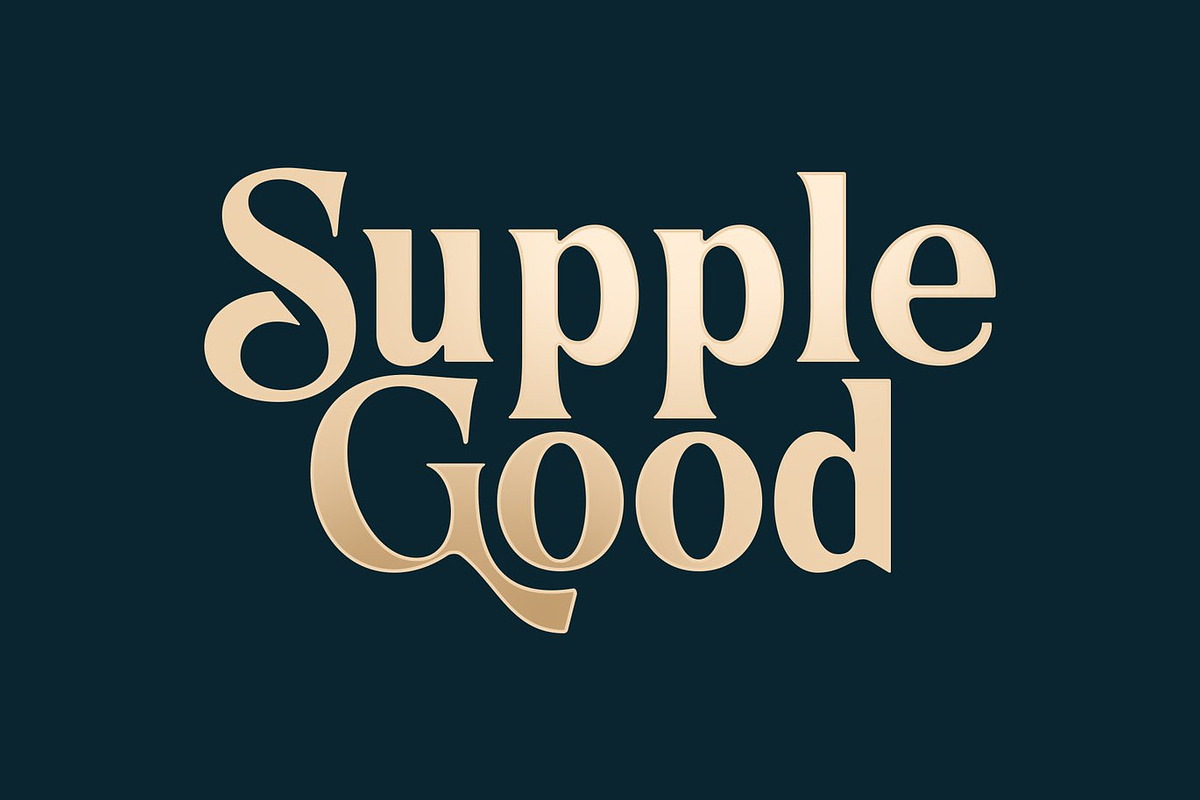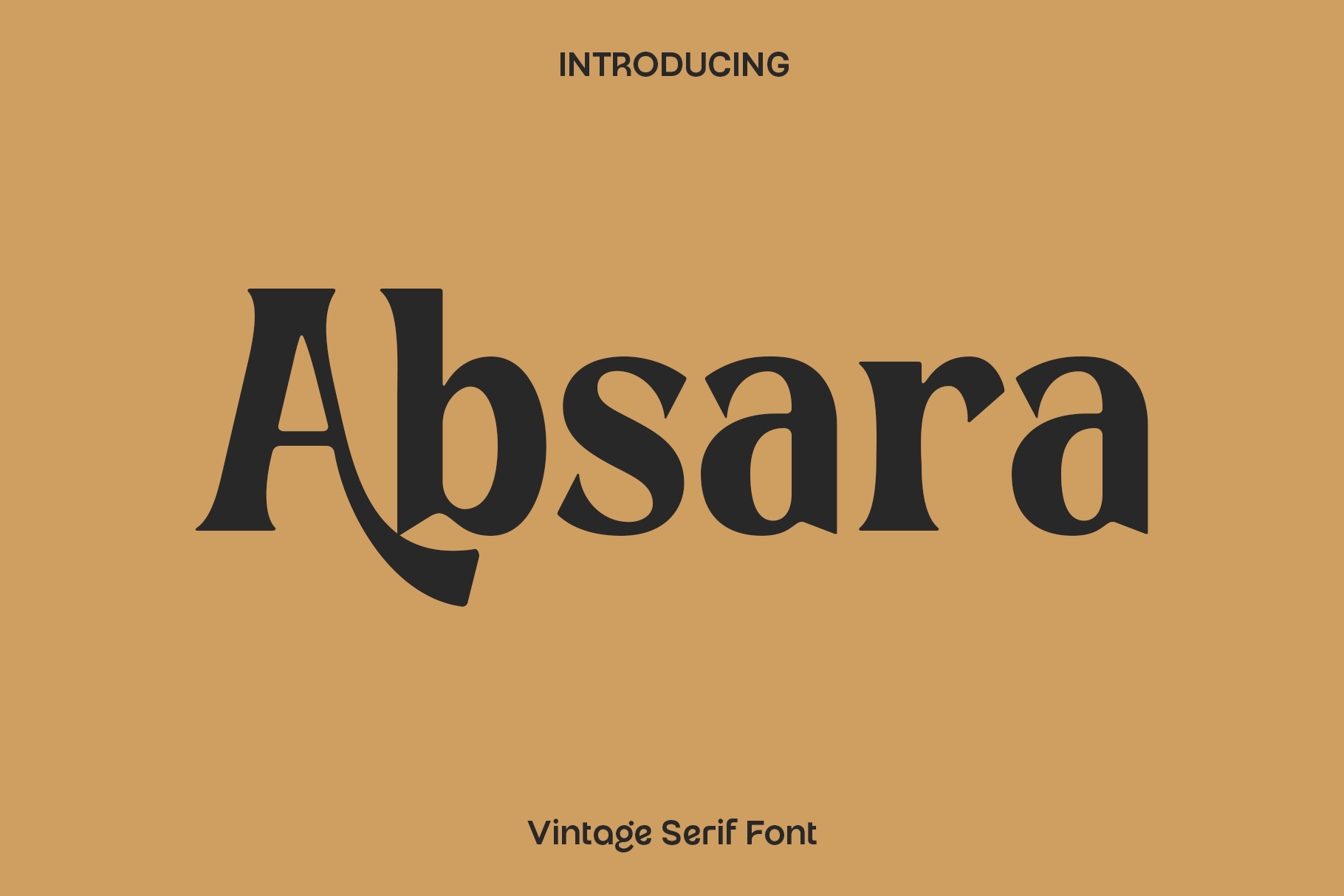
Absara - Vintage Serif Font
Absara is a vintage display font designed to bring timeless character and nostalgic charm into your creative projects. Inspired by classic retro typography and old school design aesthetics, Absara features bold letterforms, stylish curves, and carefully crafted details that create a warm and authentic vintage atmosphere. Its unique personality makes every word feel expressive, artistic, and visually memorable.
Perfect for branding, posters, packaging, logos, apparel, labels, signage, editorial layouts, and social media graphics, Absara adds a distinctive retro touch that instantly enhances the visual appeal of your designs. Whether you are creating a rustic brand identity or a stylish vintage inspired headline, this font delivers strong character while maintaining excellent readability across both print and digital media.
Absara was created for designers who appreciate typography filled with personality and creative flexibility. The included alternate glyphs from A to Z allow you to explore unique letter combinations and custom typography styles, helping your work feel more original and handcrafted. Its balanced mix of vintage influence and modern usability makes it suitable for a wide range of artistic and commercial projects.
With its timeless retro aesthetic and expressive details, Absara transforms ordinary text into bold visual storytelling. It is an ideal font for creators who want to add warmth, authenticity, and classic style to their typography collection.
Absara Font Features:
• Uppercase and lowercase characters
• Numerals and punctuation
• Functional characters
• Alternate glyphs from A to Z
• Vintage display typography style
• Perfect for branding, posters, packaging, and logos
• Creative and nostalgic visual appearance
• Suitable for both print and digital designs